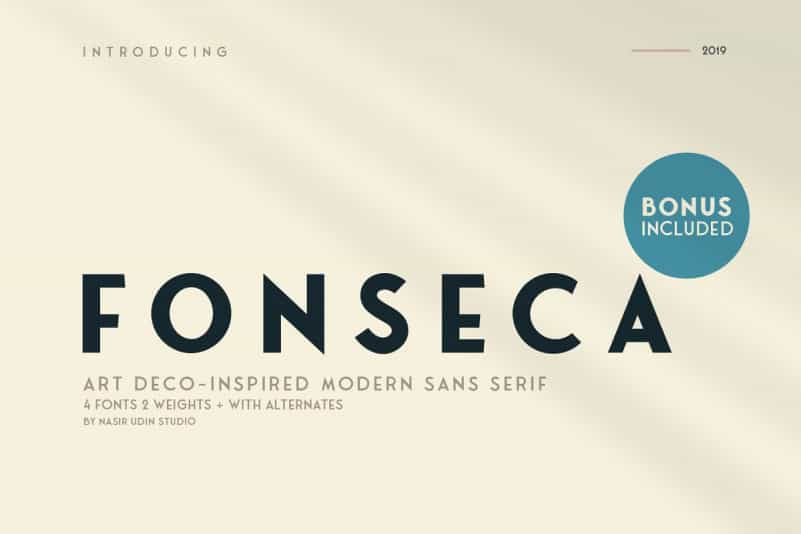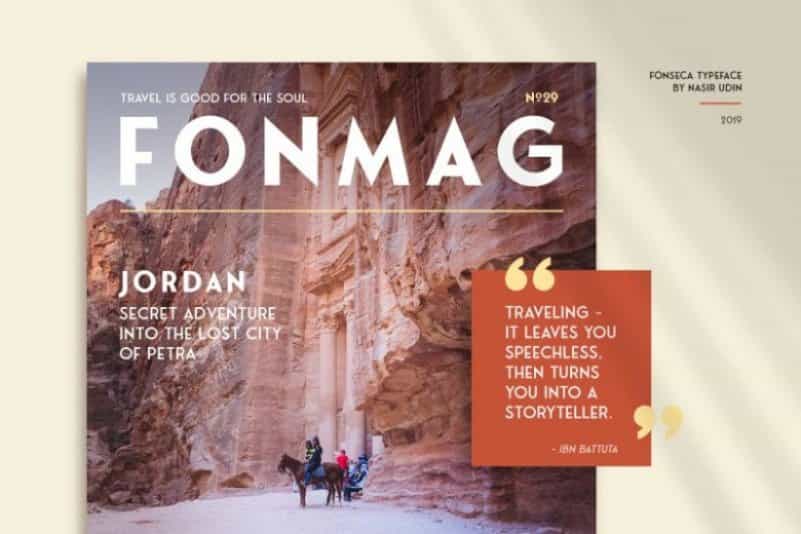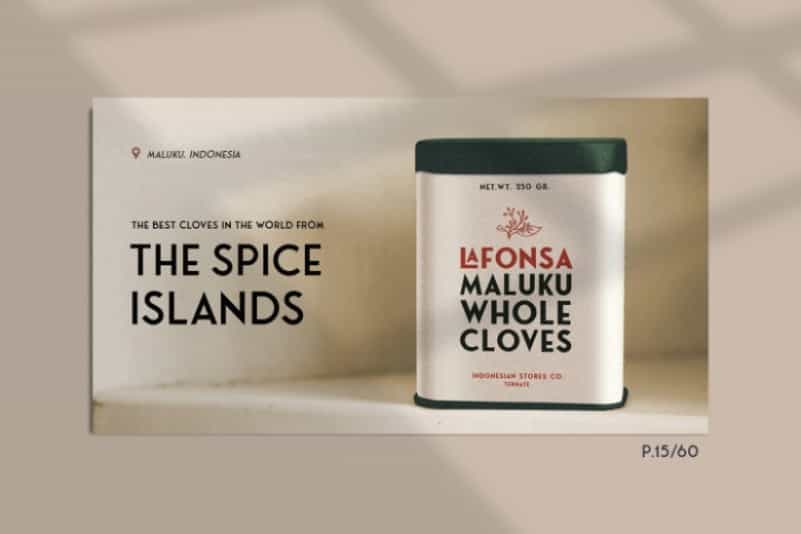
Fonseca is an experimental sans serif font which comes in four fonts and two weights for you to easily customize. Also, it has many alternates that make this font perfect for wordmarks or body copy in your next project! Look at it now and add this font to your toolkit for success.